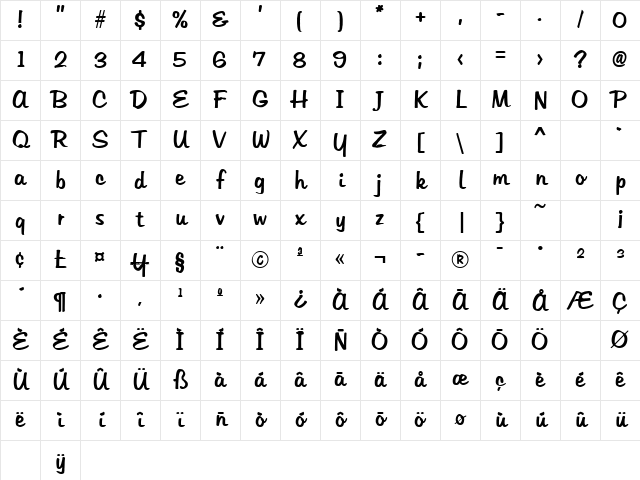
Hudson Regular Free Font
Hudson Regular
Design Context for Hudson
Hudson is a composed and adaptable typeface that performs quietly and consistently across a wide range of design contexts.